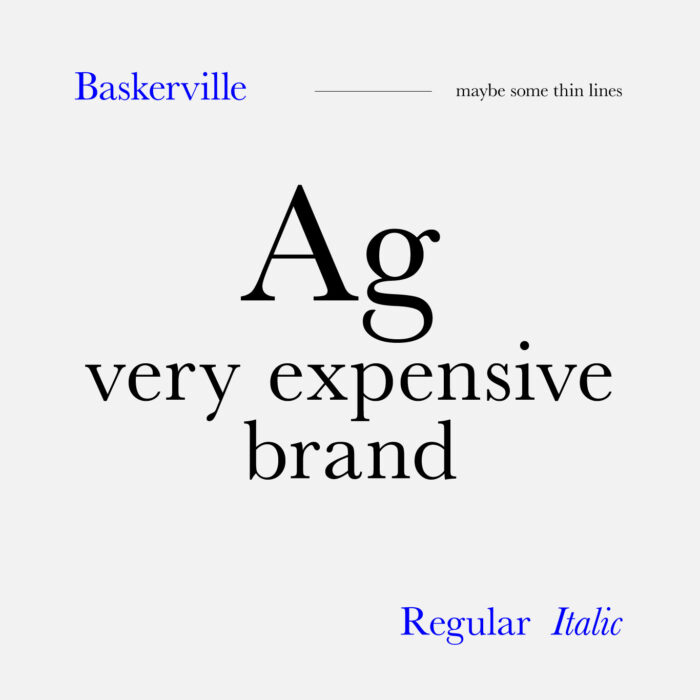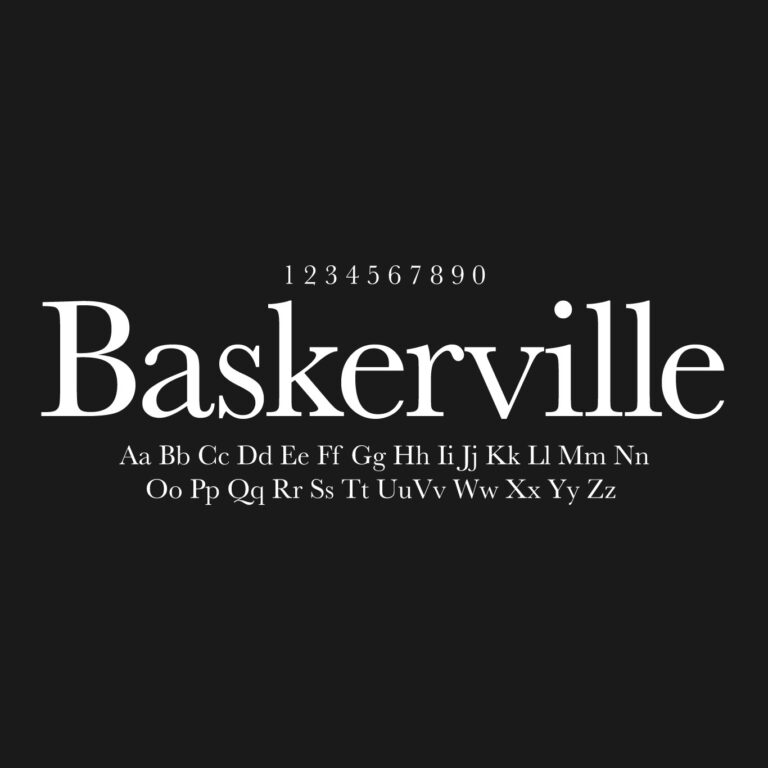
Baskerville may be the only typeface with experimental evidence that people believe it more. Moreover, it’s a 1757 design so ahead of its time that its creator had to invent new paper and new ink just to print it. This download includes 6 TTF files: Regular, SemiBold, and Bold, each with a matching italic.
The Perfectionist of Birmingham
John Baskerville made his fortune in “japanning” — lacquered trays, buttons, and boxes — before turning to printing in his forties. From the start, he came to it as an obsessive. His typeface, cut into metal by punchcutter John Handy around 1757, sharpened everything about the old-style types of rival William Caslon. First, the contrast between thick and thin strokes grew stronger. At the same time, the stress of the round letters turned more vertical, while the serifs became crisper and more tapered. As a result, his design now defines the “transitional” category: the bridge between old-style serifs like Garamond and the high-contrast moderns like Bodoni that followed.
Because the letters were so fine, existing technology couldn’t print them properly. So Baskerville rebuilt the entire process around his type. Together with papermaker James Whatman, he developed wove paper — a smoother, more uniform sheet than the ribbed laid paper standard for centuries. In addition, he formulated a blacker, more consistent ink, and even pressed printed sheets between heated copper plates for extra crispness. His 1757 edition of Virgil, three years in the making, caused a sensation and earned him the post of printer to Cambridge University. However, not everyone approved: rivals claimed the dazzling contrast “hurt the eyes.” Benjamin Franklin, a fellow printer and friend, mocked those critics openly. Even so, the type fell out of fashion after Baskerville’s death, only to be revived in the 20th century as a classic.
The Most Believable Font
In 2012, documentary filmmaker Errol Morris ran a hidden experiment through The New York Times. Readers saw a passage about catastrophe and were asked whether they agreed with it. What they didn’t know: the passage was randomly rendered in one of six typefaces — Baskerville, Georgia, Helvetica, Computer Modern, Trebuchet, or Comic Sans. Working with Cornell psychologist David Dunning, Morris then analyzed tens of thousands of responses. In the end, Baskerville won: statements set in it were measurably more likely to be believed. Although the effect was small, it was consistent — and the finding, inevitably nicknamed the “Baskerville effect,” is exactly why the typeface remains a favorite of law firms, universities, and anyone selling credibility.
Using Baskerville Today
Baskerville is a natural fit for books, essays, legal and academic documents, luxury branding, and editorial design. Thanks to its generous proportions and even rhythm, long text stays genuinely comfortable. Meanwhile, the italic is elegant and calligraphic — one of the most admired in any classic family. Two practical notes: first, give it slightly more line spacing than a modern sans, in the spirit of Baskerville’s own wide-margined pages. Second, its fine hairlines can thin out at very small screen sizes; that’s exactly the problem Libre Baskerville was created to solve for the web.
Font Name: Baskerville
Font Type: Serif
Category: Transitional Serif
Visual Style: Refined, credible, classical, high-contrast
Best For: Books, academic and legal documents, luxury branding, editorial layouts and long-form reading
Designer: John Baskerville (cut by John Handy)
Released: 1757
Libre Baskerville is the key free alternative — an open-source revival optimized for screen reading, available on Google Fonts. Mrs Eaves, named after Baskerville’s wife Sarah Eaves, is Zuzana Licko’s celebrated 1996 reinterpretation. For neighbors in the same tradition: Caslon is the old-style rival Baskerville set out to surpass, Georgia carries related Scotch Roman DNA into the screen era, and Playfair Display draws directly on Baskerville’s high-contrast spirit for headlines.